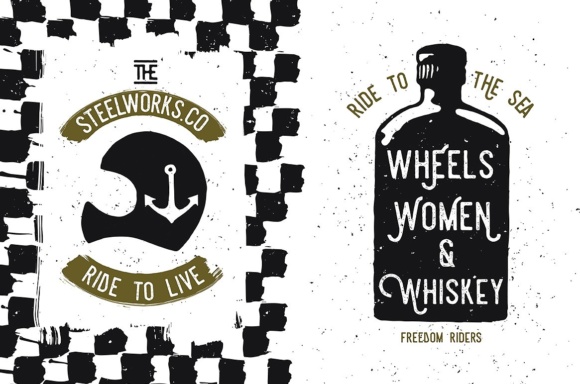
Steelworks Font
Steelworks is inspired from ink & tints and it’s manual hand drawn with a brush to make it look messy but natural. Steelworks has alternate glyphs and ligatures that could help you make stylish designs. Each glyph is made manually with very much diligent and consistency.Bonus: All bonus comes with regular and vintage version. File format (ai, eps, png, pdf)